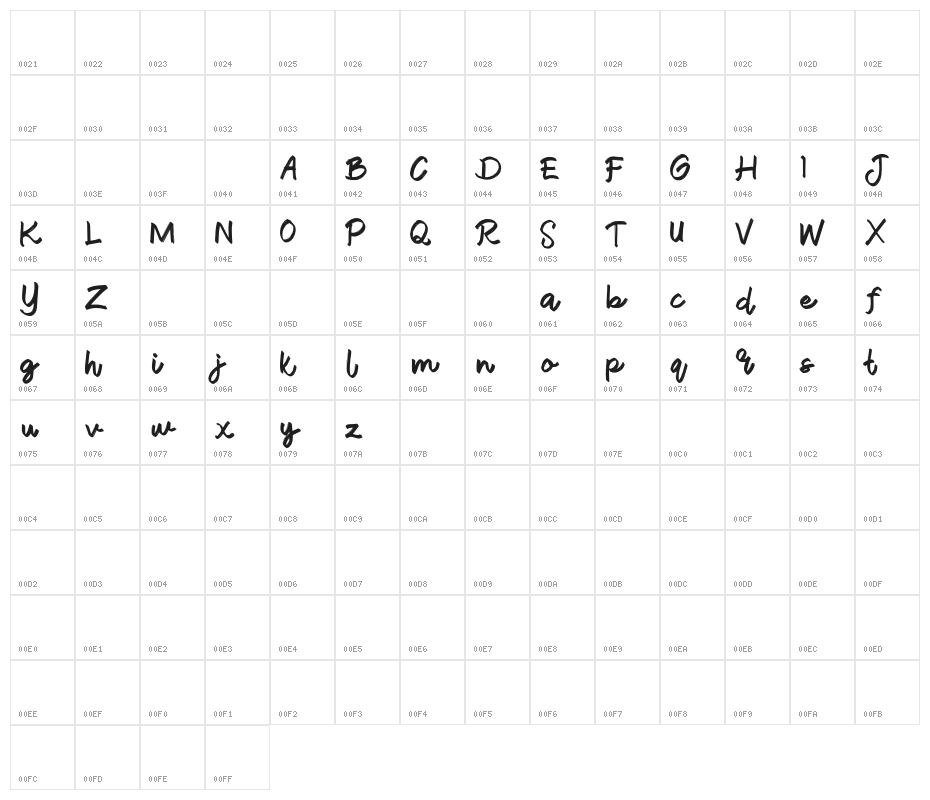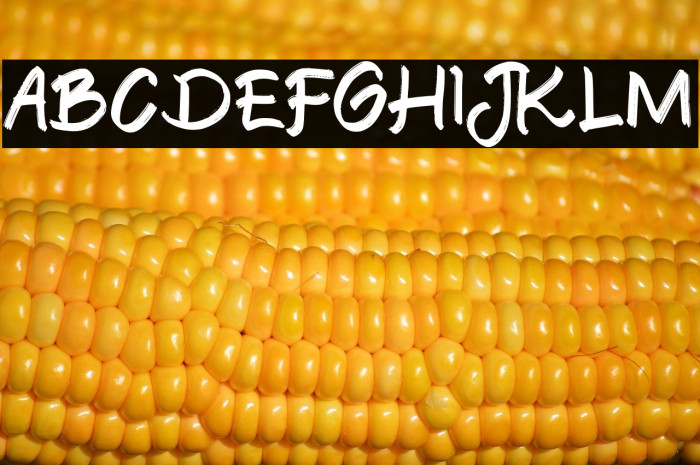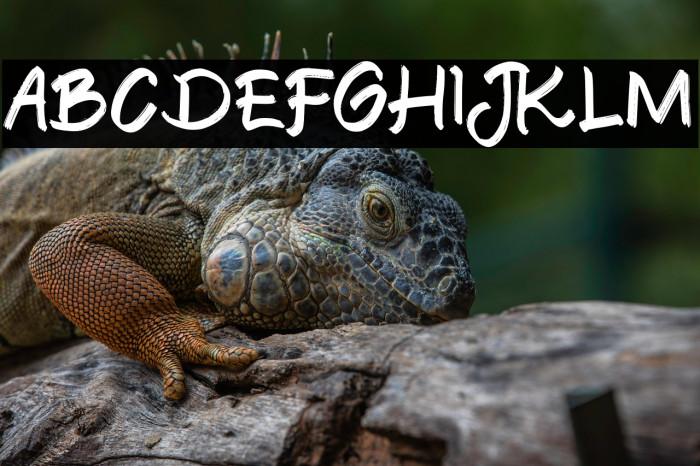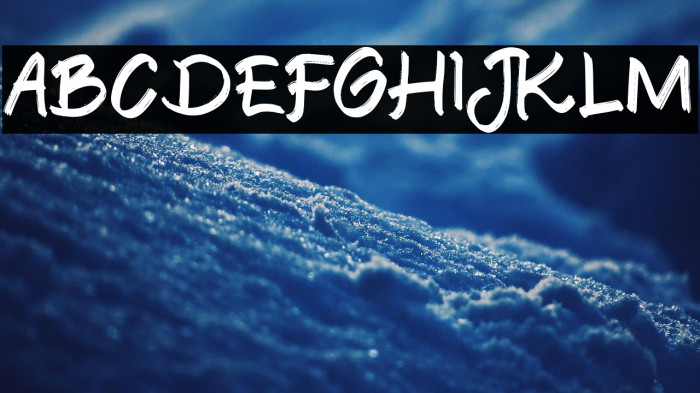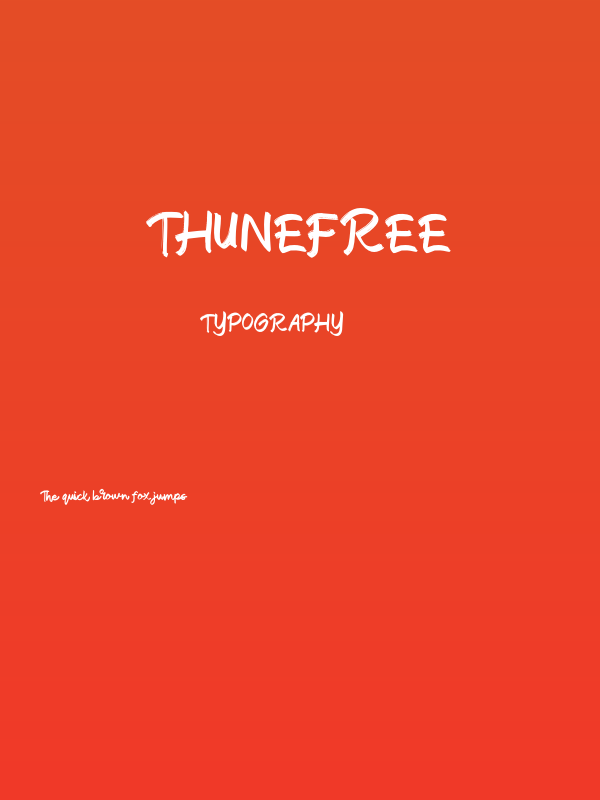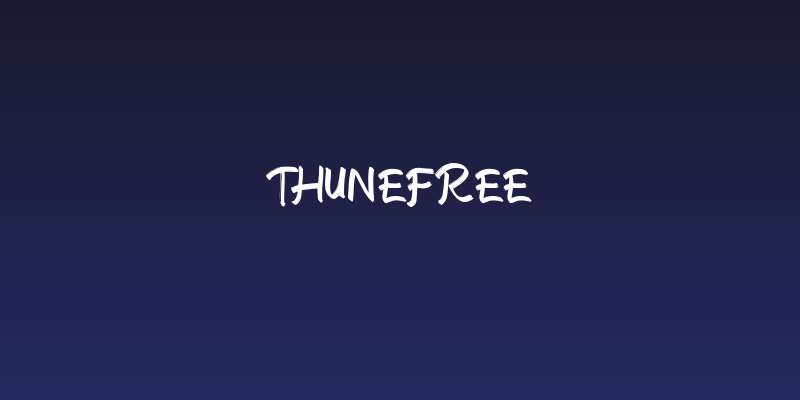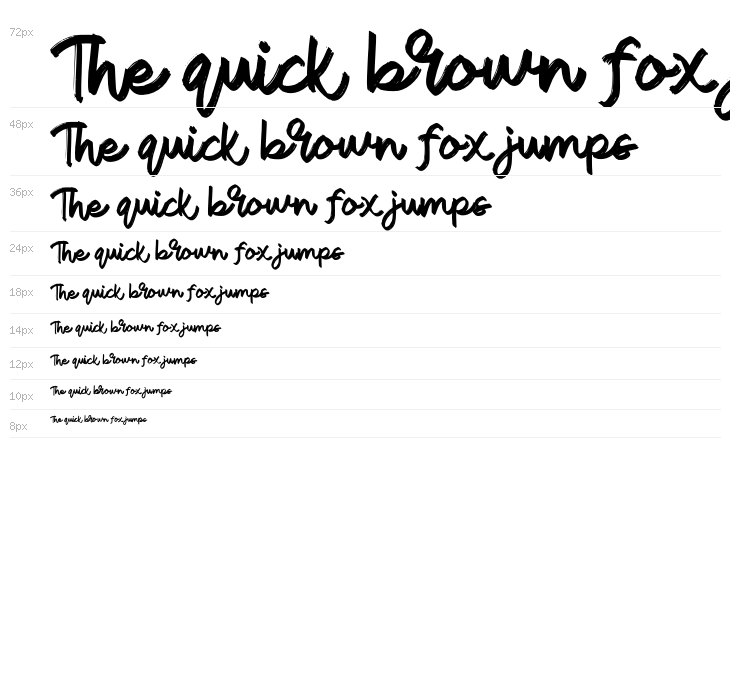
ThuneFREE Font
ThuneFREE Description
This font features a bold, expressive style with a handwritten appearance. The letters are crafted with a brush-like texture, giving them a dynamic and artistic flair. The uppercase and lowercase characters maintain a consistent flow, with rounded edges and varying stroke widths that add to the font's lively personality. The numbers and special characters follow the same design principles, ensuring a cohesive look across all elements. This font is ideal for projects that require a personal touch or a creative, informal vibe.
| Use Case | Logos, Headlines, Posters |
| Proposed Projects | Perfect for greeting cards, posters, branding, and social media graphics. |